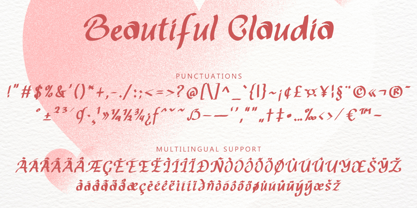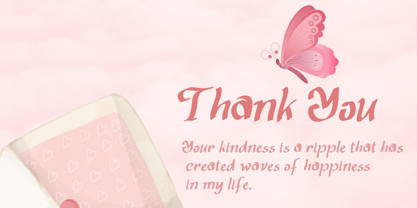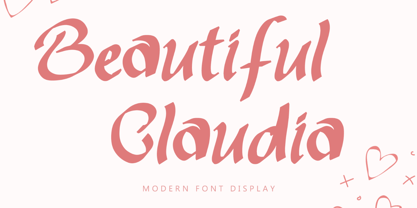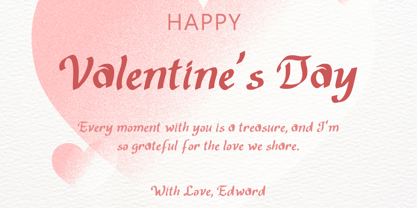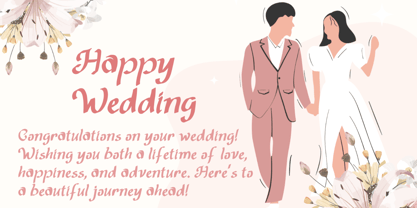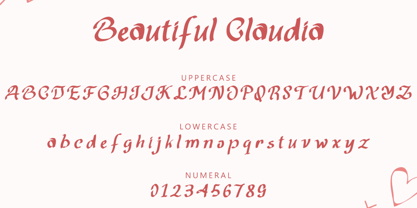
Beautiful Claudia
por Yoga Letter
La familia tipográfica Beautiful Claudia fue diseñada por Isroni Yoga Prasetya y publicada por Yoga Letter. Beautiful Claudia contiene 1 estilos. Más información sobre esta familia
"Beautiful Claudia" is an elegant display font. It comes with lowercase, uppercase, numbers, punctuation, and multilingual support. It is perfect for wedding, birthday, invitation, valentine, christmas, banner, branding, sticker, poster, print, logo, etc.
Diseñadores: Isroni Yoga Prasetya
Fundición: Yoga Letter